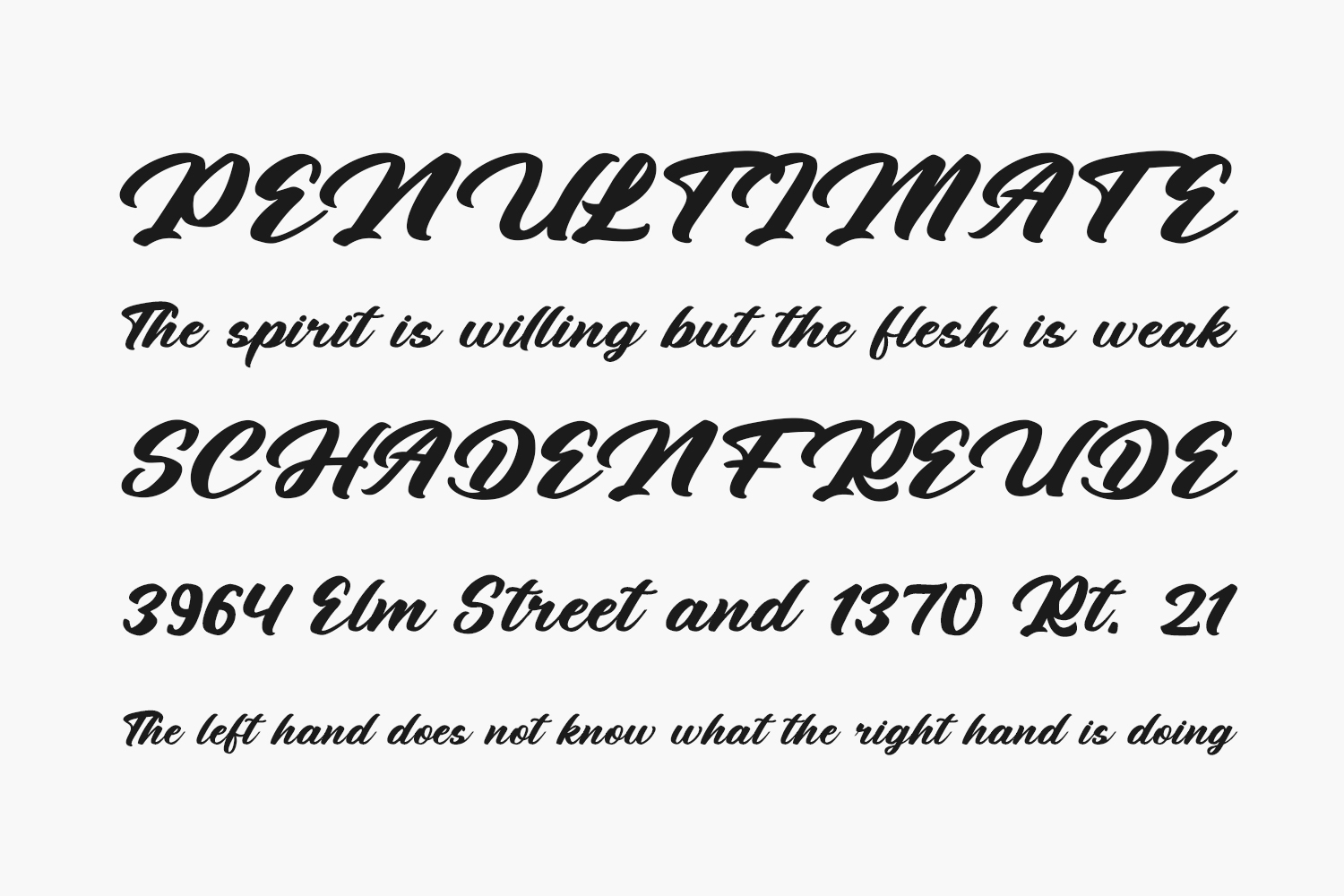
Anthem Pride Free Font is a captivating handwritten script that can be used for a variety of purposes. With its versatility, this font can be utilized for everything from greeting cards to headlines with ease.
Designed by Ronny Studio